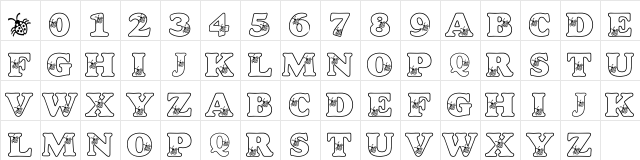
LMS Ladybird Regular Font Preview
LMS Ladybird Regular
Design Context for LMS Ladybird Typeface
LMS Ladybird is a composed and adaptable typeface that performs quietly and consistently across a wide range of design contexts.